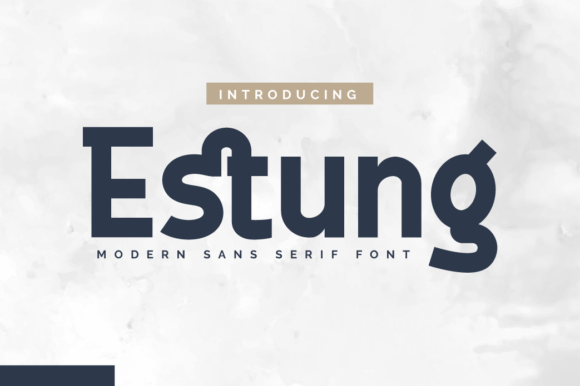
Estung Font: Forging Bold Designs in the Gaming Realm!
In the world of gaming, where creativity and visual appeal reign supreme, typography takes center stage. Unleash your imagination with Estung Font, the sans serif font meticulously crafted to empower your designs with a captivating edge. Embark on an extraordinary journey of self-expression as Estung Font becomes your trusted ally in creating outstanding gaming-inspired masterpieces.
Step into a universe where every letter is a weapon in your creative arsenal. Estung Font's sharp angles and dynamic curves command attention, evoking a sense of adventure and intrigue. Its clean lines and modern aesthetic perfectly complement the fast-paced, high-energy nature of gaming, making it an ideal choice for logos, titles, and in-game text. Whether you're designing a futuristic interface or a fantasy realm, Estung Font will elevate your project to new heights.
With Estung Font, you're not just downloading a font; you're gaining a partner in your quest for visual excellence. Its PUA encoding ensures effortless access to a treasure trove of glyphs and swashes, unlocking a world of possibilities for customization. Unleash your creativity and craft designs that reflect your unique style and vision. Join the ranks of discerning designers who have discovered the transformative power of Estung Font in their gaming projects.
Experience the thrill of creating designs that resonate with gamers and leave a lasting impression. Estung Font's bold and distinctive character will captivate your audience, drawing them into the immersive world you've created. Let your imagination soar as you craft captivating logos that demand attention, titles that ignite curiosity, and in-game text that brings your characters to life. With Estung Font as your font of choice, you'll command attention and leave an indelible mark on the gaming landscape.